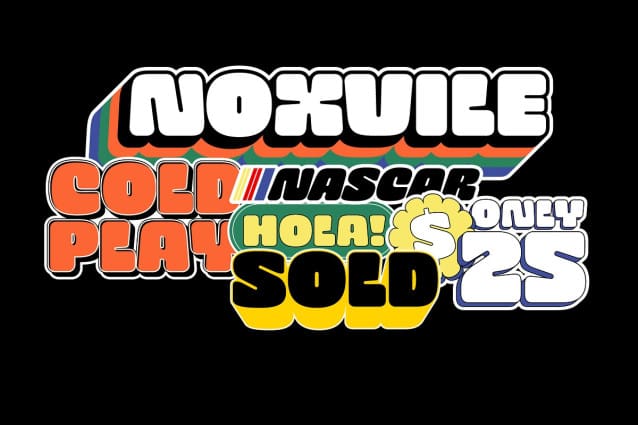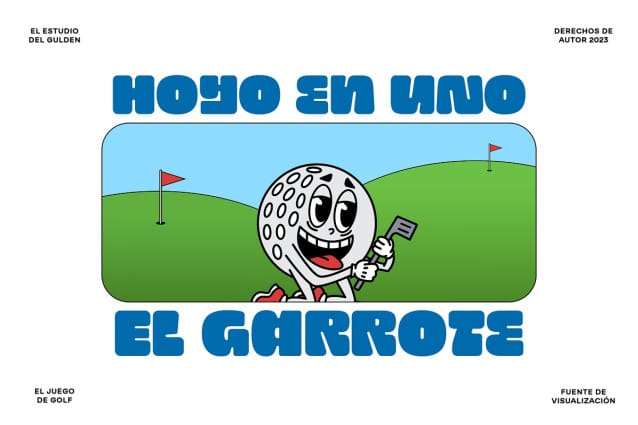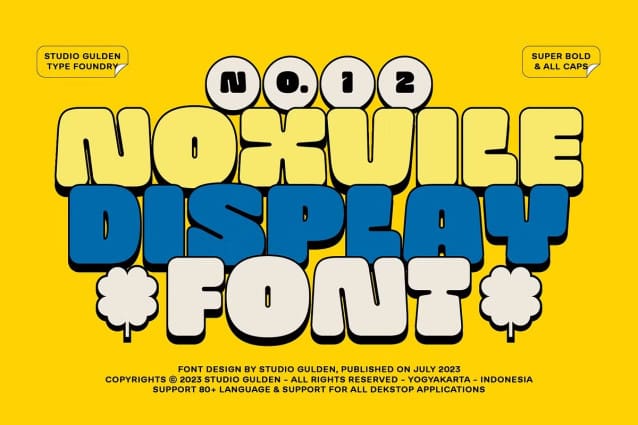
SG Noxville Font
SG Noxville Font, a revolutionary font that demands attention and exudes confidence. Crafted with precision and designed to make a statement, Noxvile brings a whole new level of intensity to your words.
Ignite your creativity and let your message roar with Noxvile’s super bold style and captivating all caps specimen. Whether you’re designing eye-catching headlines, striking logos, or empowering social media posts, this font will make your words leap off the page and leave a lasting impression.
Stand tall among the rest with Noxvile’s commanding presence. Embrace its sharp edges, powerful curves, and unparalleled strength to create a visual experience that is truly unforgettable. Let your message shine brighter than ever before, cutting through the noise and leaving your audience captivated.